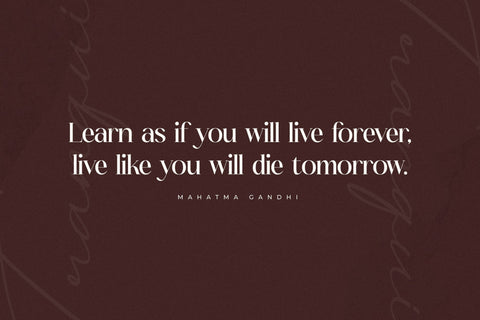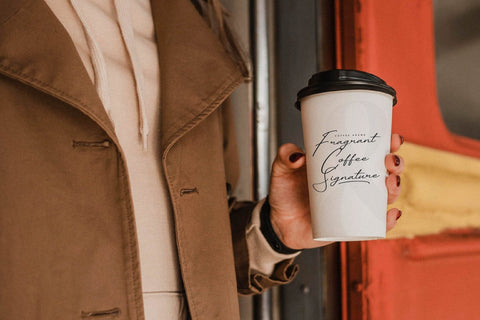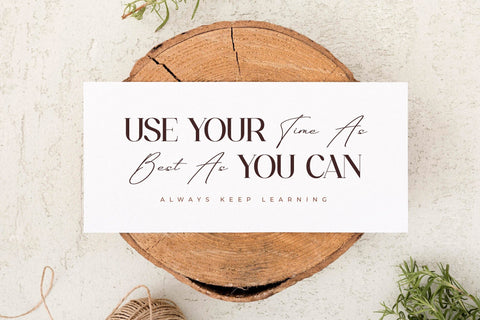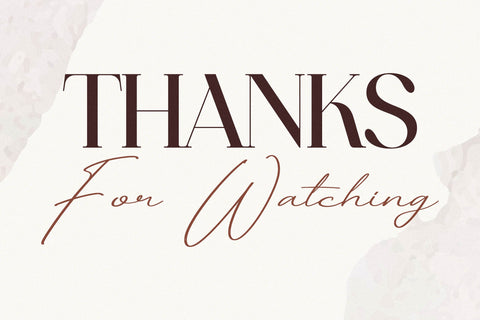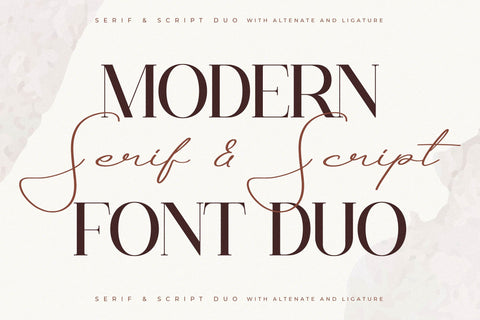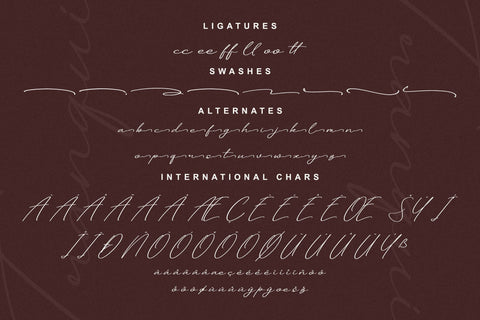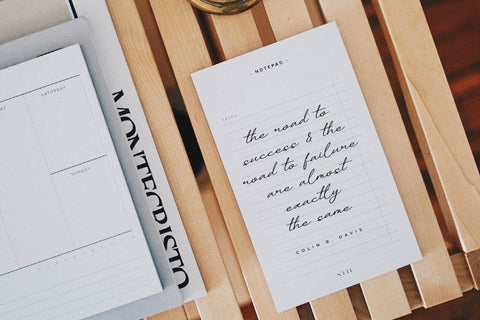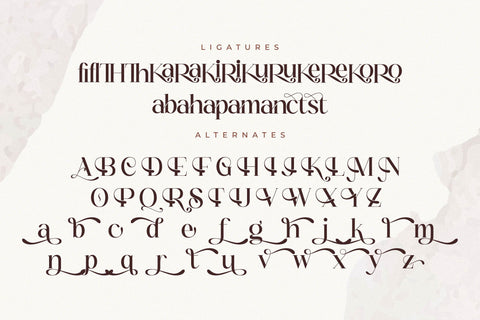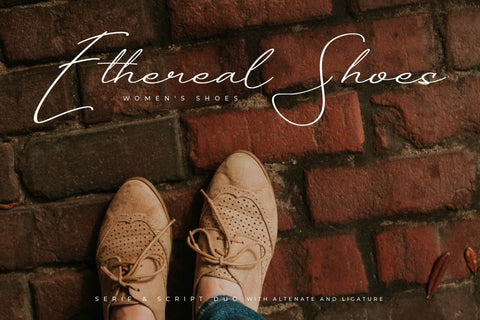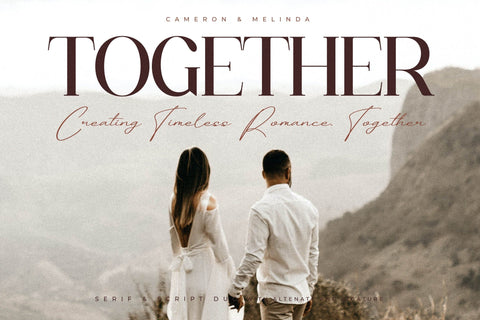
Tranquil Euphoric Font Duo
Proudly present Tranquil Euphoric Font Duo , created by Storytype,
A serif and script typeface that has own unique style & modern look.